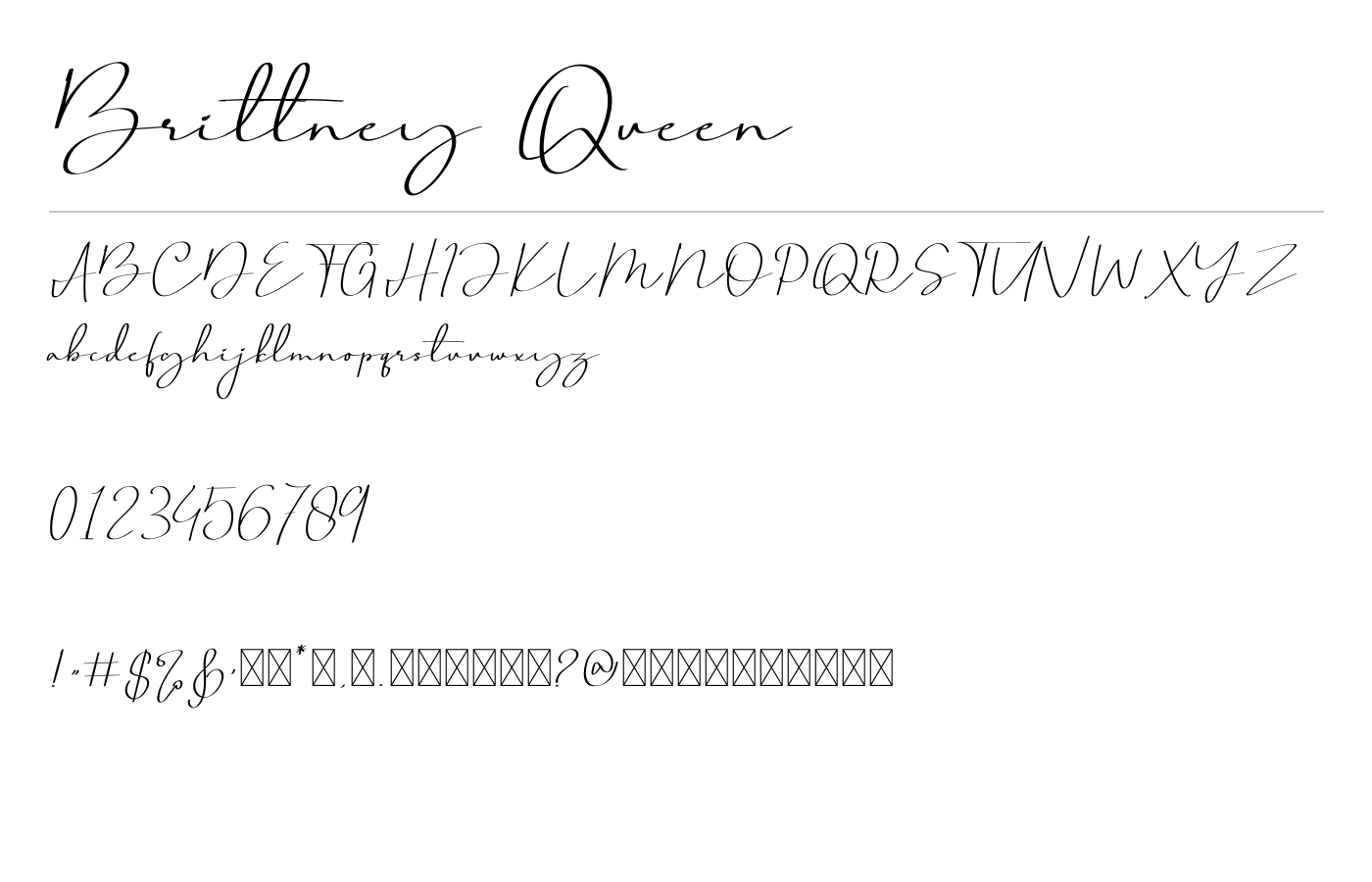
Brittney Queen is an elegant, thin script font with delicate, flowing letterforms that blend a modern handwritten style with graceful sophistication. Its high, airy x-height and fine strokes make it perfect for upscale branding, wedding invitations, and feminine editorial designs where a light, stylish touch is desired. This font’s refined charm works beautifully for logos, headlines, and decorative text that require a personal, artistic flair.
Brittney Queen Font
About Brittney Queen Font